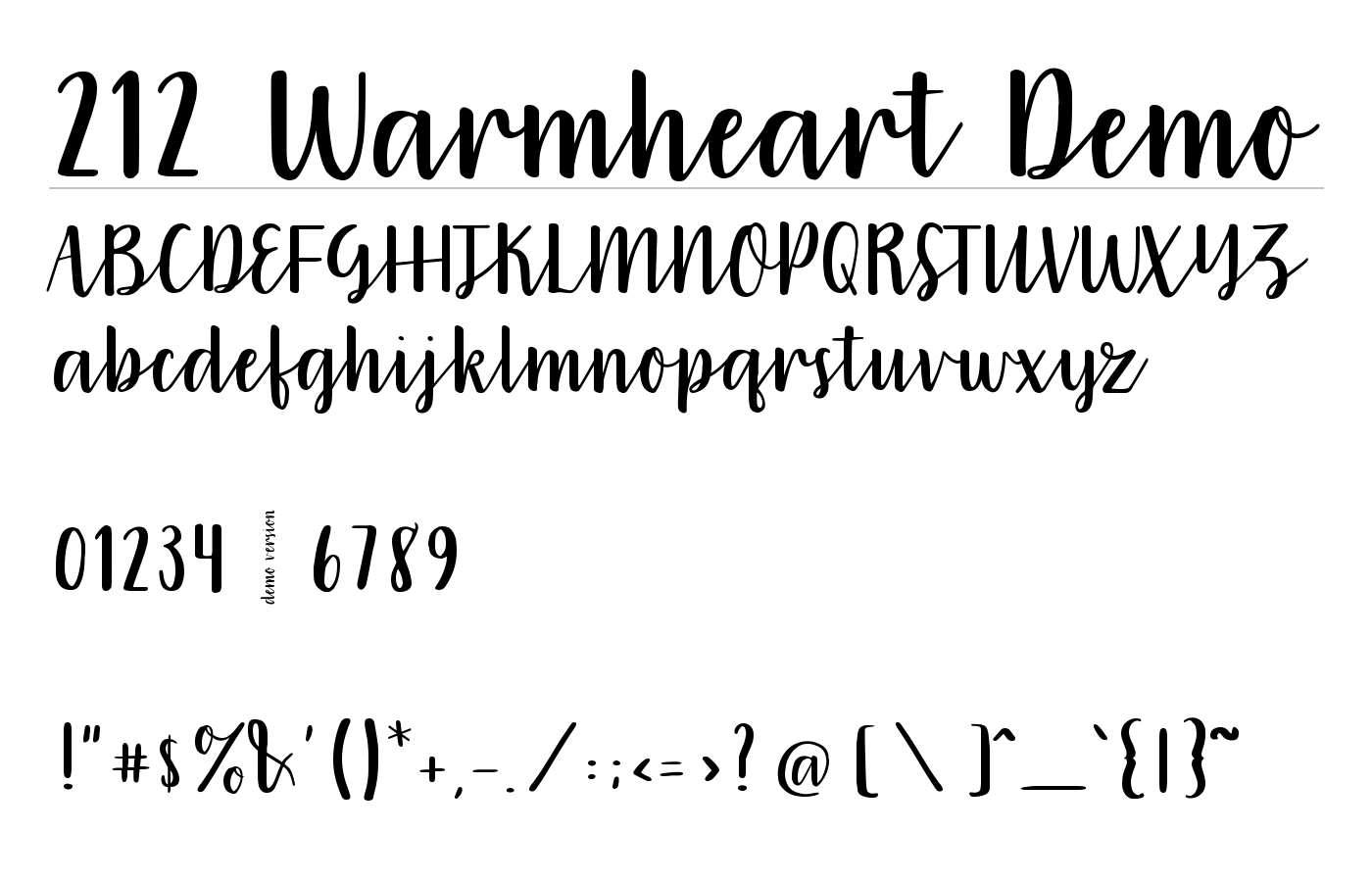
212 Warmheart Demo is a charming, casual script font with a friendly and hand-drawn feel. Its tall, slightly irregular letterforms and smooth, flowing strokes make it perfect for designs that seek a warm, approachable, and personal touch. This font works well for branding, invitations, social media, and any creative project aiming to convey warmth and creativity.
212 Warmheart Demo Font
About 212 Warmheart Demo Font
| Font family | 212 Warmheart Demo Font |
| Designer | Elizabeth McLain |